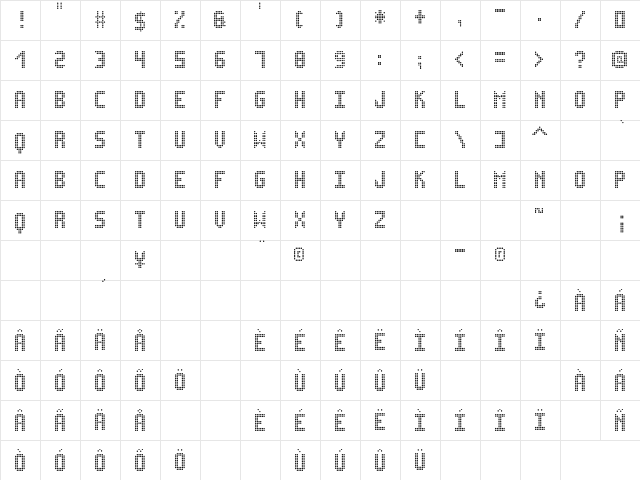
Ledsitex St Regular
Design Context for Ledsitex St Typeface
Ledsitex St takes a measured approach to typography — its balanced proportions and neutral character make it a reliable workhorse for both digital and print work.